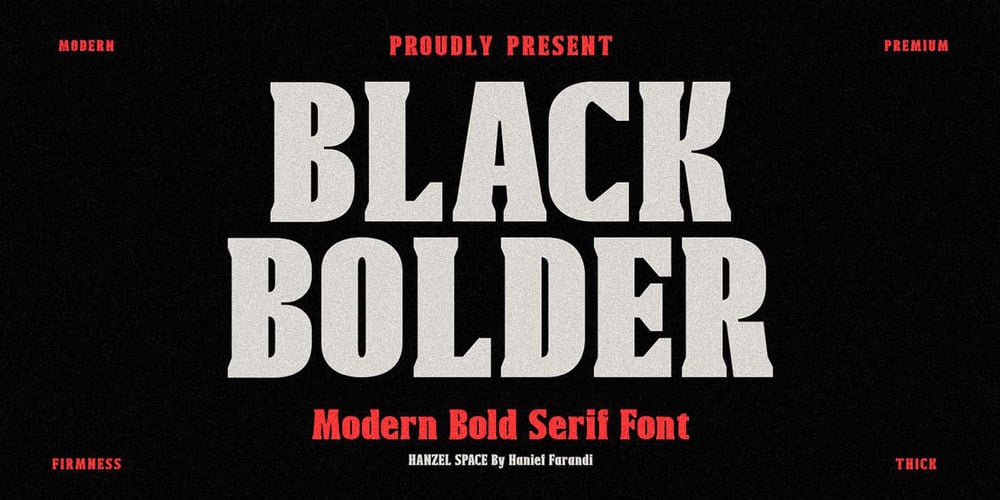
Black Bolder
Black Bolder font
Black Bolder Font Family was designed by Hanief Farandi and published by Hanzel Space. Black Bolder contains 1 styles and family package options. Black Bolder uses a font with a solid and strong impression. These letters are usually tall, bold, and easy to read considering that they are very suitable to be placed as titles, logos, labels, brands, advertisements, magazines or pamphlets. This font is easy to use to complement your work solutions.To enable the OpenType Stylistic alternates, you need a program that supports OpenType features such as Adobe Illustrator CS, Adobe Indesign & CorelDraw X6-X7.